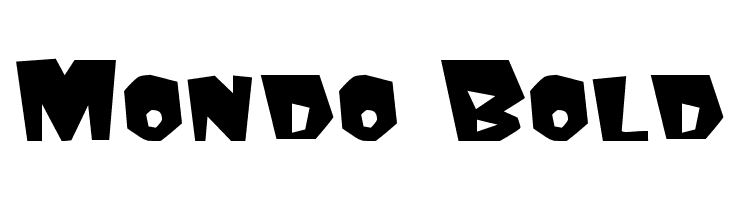
A playful, bold font with rounded, thick strokes and a hand-drawn feel.
A bold, playful font with a comic book style and hand-drawn appearance.
A bold, energetic font with sharp, angular strokes and a rebellious vibe.
A bold, rugged font with distressed edges, ideal for impactful designs.
A playful, energetic font with script and sans-serif elements, ideal for festive designs.
A bold, playful font with chunky, irregular letterforms and a hand-drawn appearance.
A modern, geometric font with clean lines and a minimalist style.
A bold, Gothic-style font with intricate and angular letterforms.
A bold, hand-drawn font with a tape-cut appearance and playful style.
A futuristic, italicized, and condensed font with sharp, angular edges.
A bold, playful sans-serif font with geometric influences and whimsical curves.
A bold, geometric font with sharp angles and a modern, edgy style.
A bold, slanted outline font with a dynamic and energetic style.
A modern, oblique sans-serif font with a clean and professional look.
A bold, geometric font with a modern and structured appearance.
A modern, geometric sans-serif font with clean lines and balanced proportions.
A playful, hand-drawn style font with bold and thin strokes, perfect for informal designs.
A futuristic and geometric font with sharp angles and bold strokes.
A bold, distressed font with a rugged, grunge aesthetic.
A modern, tall, and narrow font with consistent stroke width and geometric precision.
A playful, bold font with thick, rounded outlines and a cartoonish style.
A rugged, distressed font with a bold, graffiti-like style.
A bold, geometric stencil font with a modern industrial feel.
A decorative and flowing script with interconnected, artistic strokes.
A playful, handwritten-style font with bold, dynamic strokes.
A classic serif font with a unique beveled, three-dimensional style.
A modern, condensed font with tall, narrow letterforms and consistent stroke width.
A bold, angular font with a futuristic and geometric design.
A pixelated, retro-style font inspired by early video game graphics.
A bold serif font with strong strokes and a classic, vintage appeal.
تحظى Indie Komiks Sketch BoldItalic, Biscuitos, SF Orson Casual Shaded Oblique, Comik Demo and Akiba Punx بشعبية لخطوطها النظيفة وتطبيقاتها الواسعة — من الهوية البصرية إلى الصفحات المقصودة والملصقات.